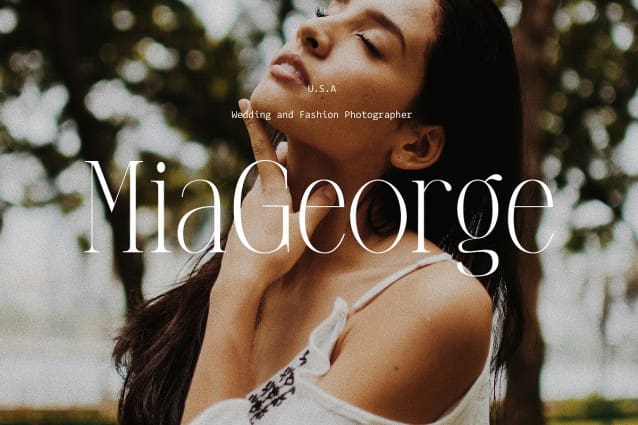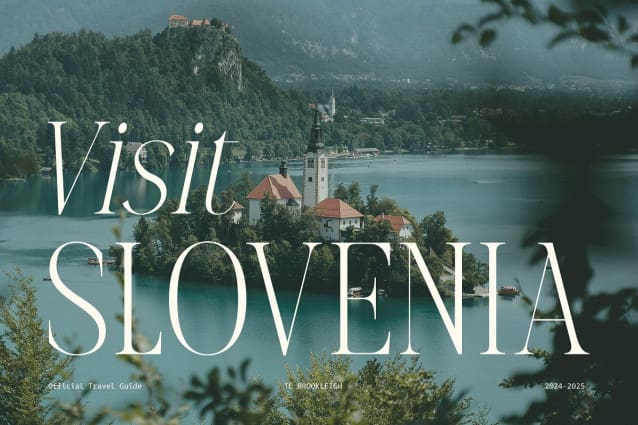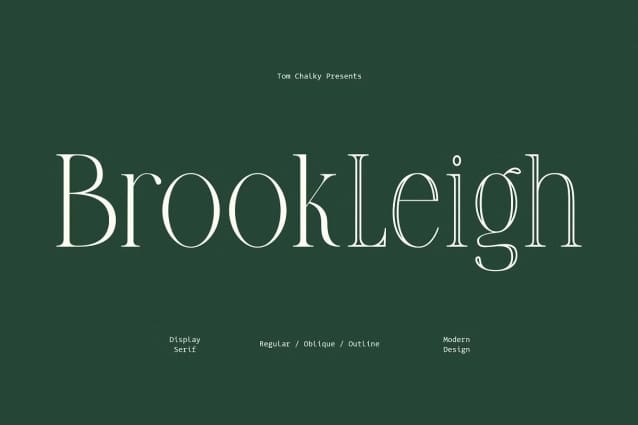
Brookleigh Font
Brookleigh Font – A gorgeous modern and classy serif font family. Inspired by typography-focused minimalism, Brookleigh provides a feast for the eyes, oozing class and elegance through curves and a slightly condensed appearance.
This wonderfully diverse serif was designed to take up space – looking its very best when used at larger sizes (headers, titles, call to actions, quotes, etc).
A great serif for labels/logos in combination with scrips and sans typefaces (see the ‘Crackle’ image above for reference!) and a fine choice for book covers, poster design, and much more.